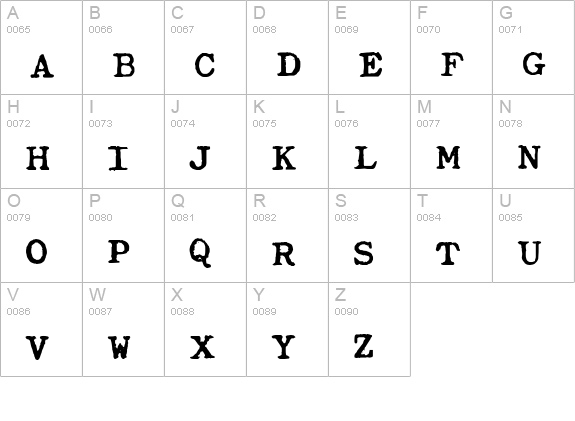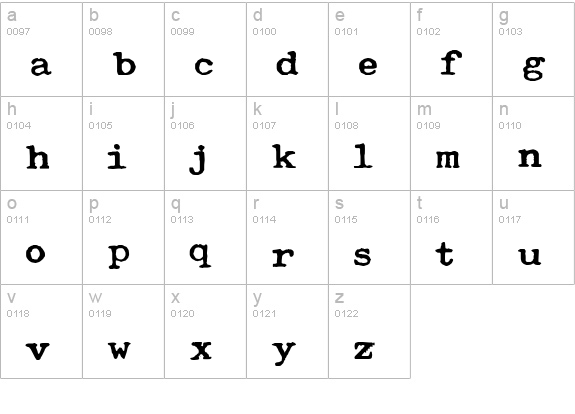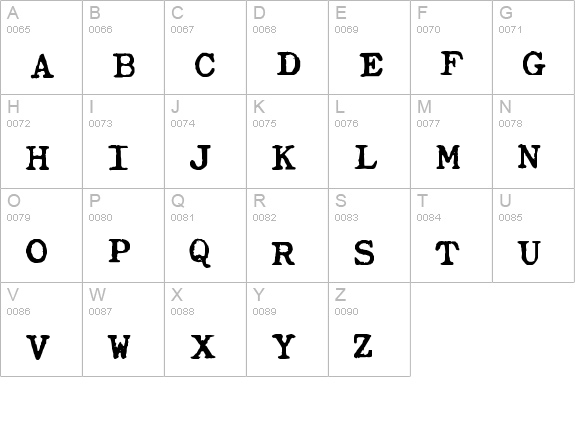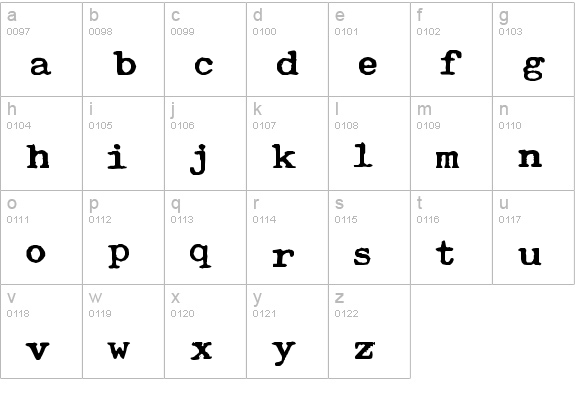
Typewriter Royal 200 Font Details
Introducing the magnificent Typewriter Royal 200 font, the epitome of vintage elegance and timeless charm. This unique typeface effortlessly transports you back in time to the golden age of typewriters, where each keystroke resonated with a distinct click-clack, evoking a sense of nostalgia and authenticity. Crafted with meticulous attention to detail, Typewriter Royal 200 captures the essence of classic typewriters, showcasing its distinctive monospaced characters that exude a sense of order and precision. Its clean lines, perfectly imperfect letterforms, and subtle variations in stroke width create a harmonious balance that is both visually pleasing and highly readable. This versatile font is perfect for a myriad of projects, from retro-inspired designs to modern applications that seek to add a touch of vintage flair. Whether you are designing invitations for a themed party, creating a book cover that demands attention, or simply looking to infuse your digital content with a sense of nostalgia, Typewriter Royal 200 is the perfect choice. And the best part? Typewriter Royal 200 is freely available to download at FontsMarket.com. This means that you can effortlessly add this exceptional font to your collection without breaking the bank. By offering this font for free, we aim to make it accessible to designers, typewriter enthusiasts, and anyone seeking to add a touch of classic elegance to their creations. So, why wait? Embrace the charm of Typewriter Royal 200 and let its timeless appeal enhance your designs. Download it for free at FontsMarket.com and unleash your creativity with this remarkable typeface that captures the essence of an era long gone, yet forever cherished.